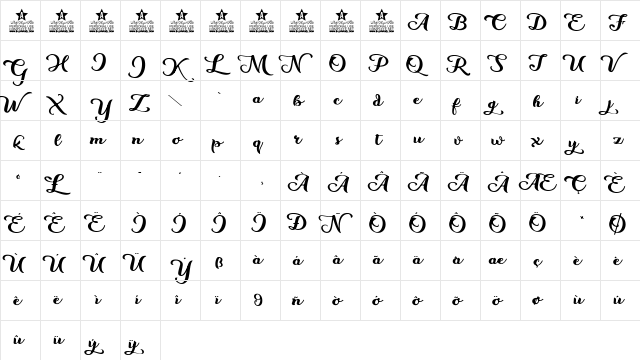
Flowers Personal Use Regular
| Foundry | Billy Argel |
| Designer | Billy Argel |
Design Context for Flowers Personal Use Typeface
Flowers Personal Use is a composed and adaptable typeface that performs quietly and consistently across a wide range of design contexts.